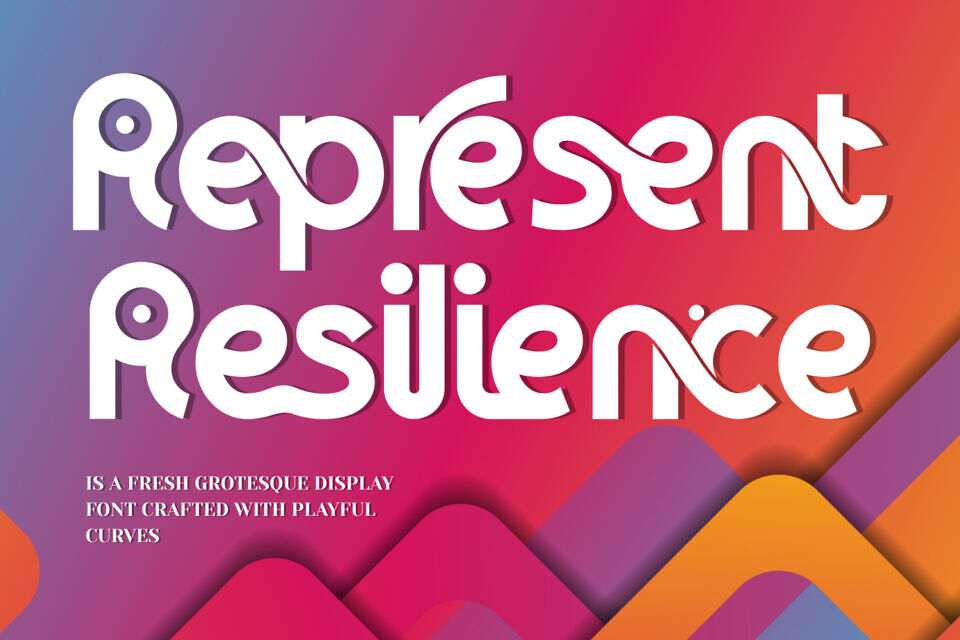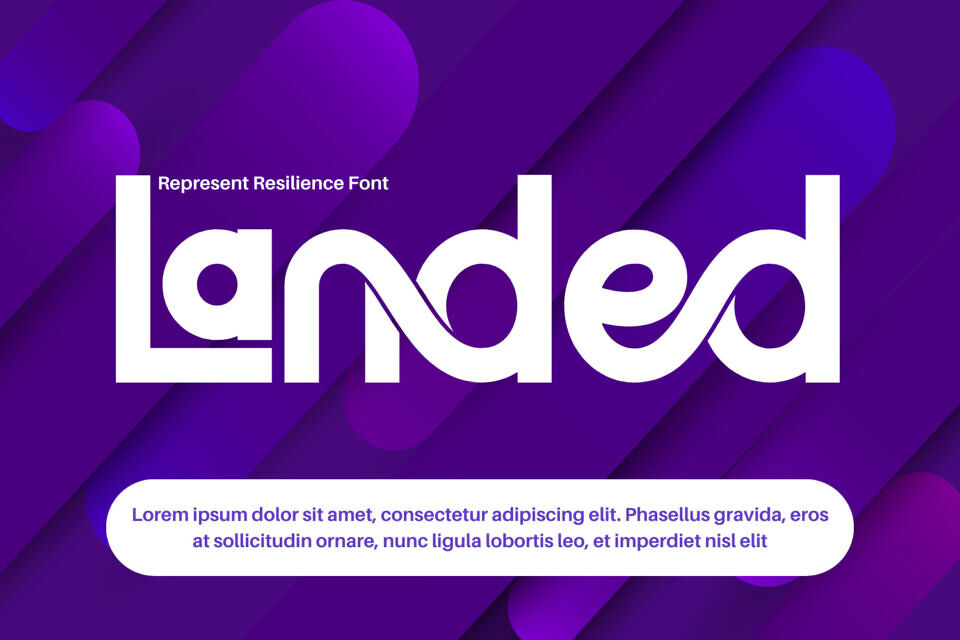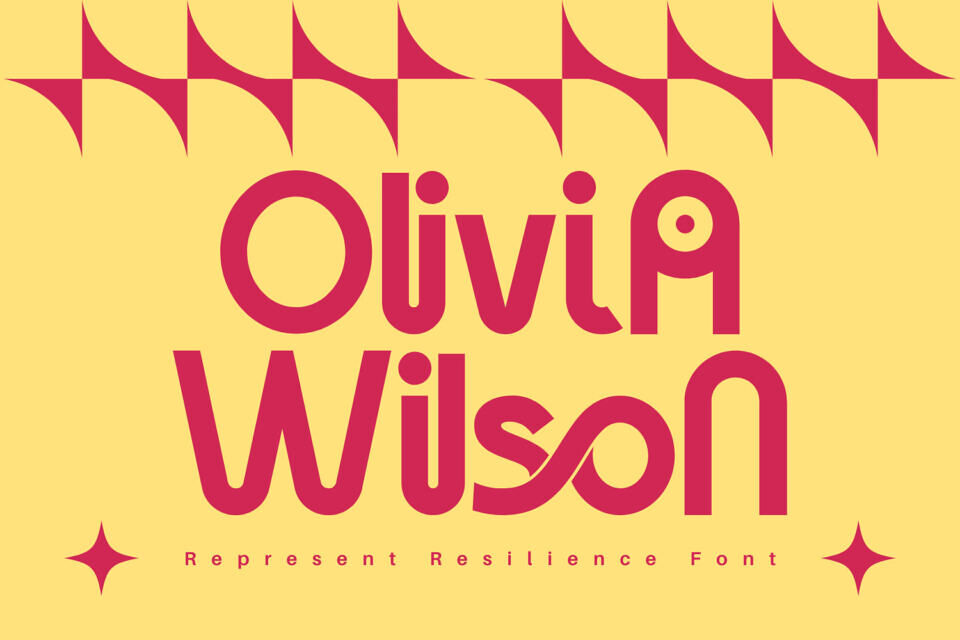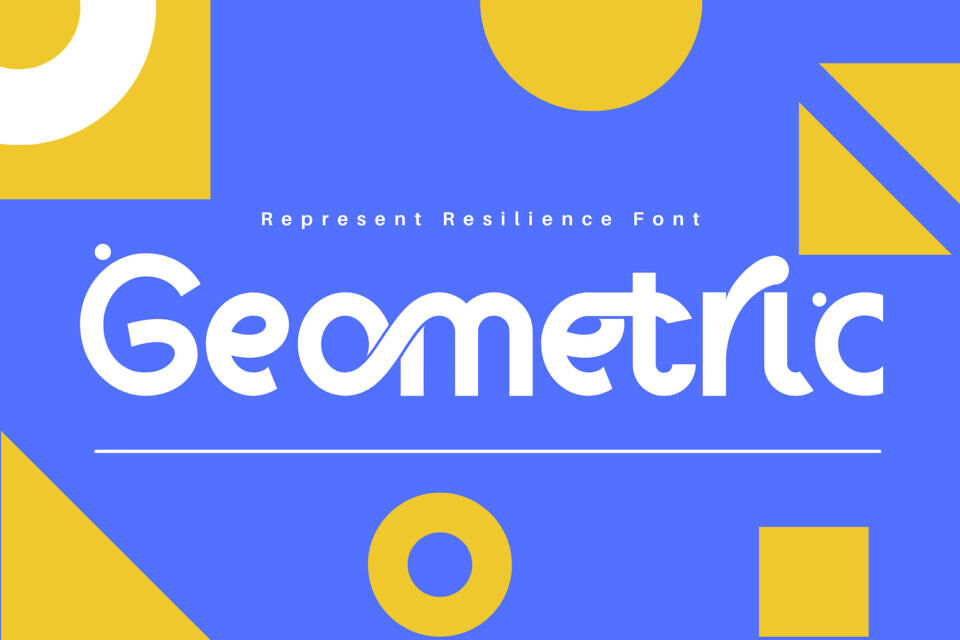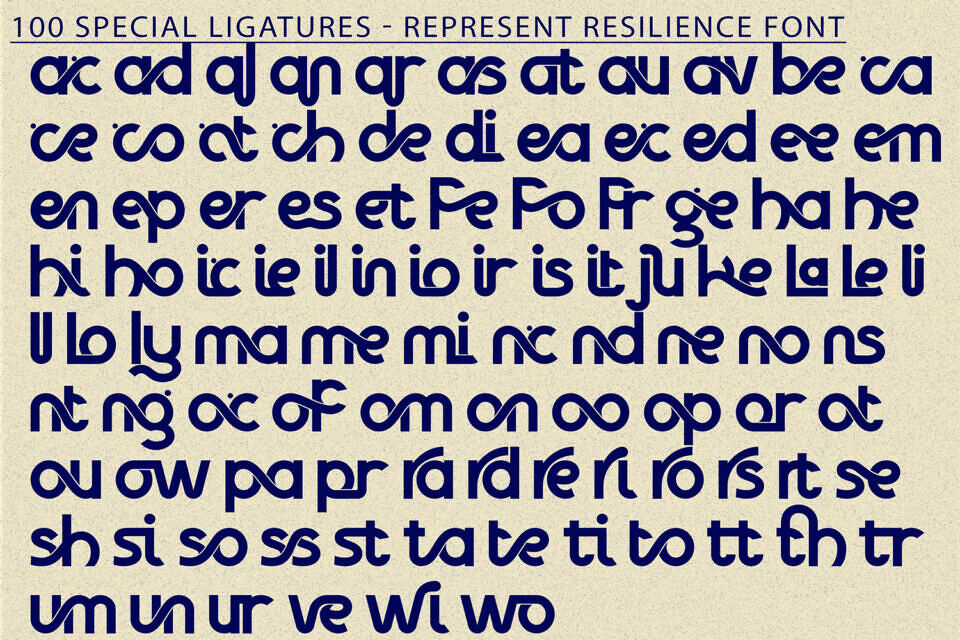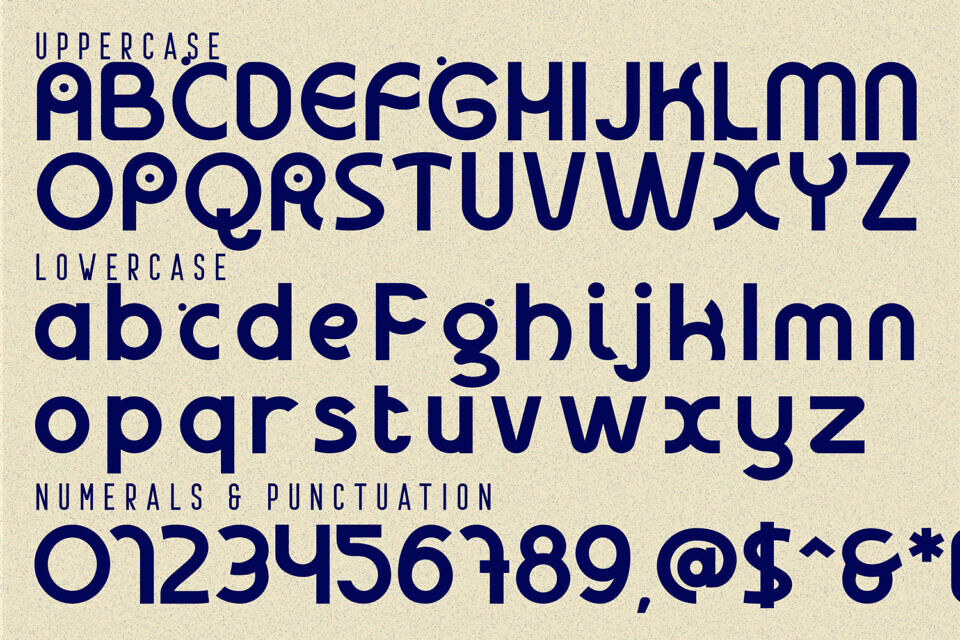
Represent Resilience Font
Represent Resilience is a bold retro rounded display sans-serif inspired by 70s psychedelic typography and modern soft geometry. Built with smooth curves, thick strokes, and playful flowing terminals, this typeface delivers a warm and expressive personality while maintaining strong visual impact.
Its balanced geometric foundation combined with organic curved details creates a dynamic rhythm that feels both nostalgic and contemporary. Represent Resilience is perfect for branding, posters, packaging, social media graphics, and standout headlines that demand attention.